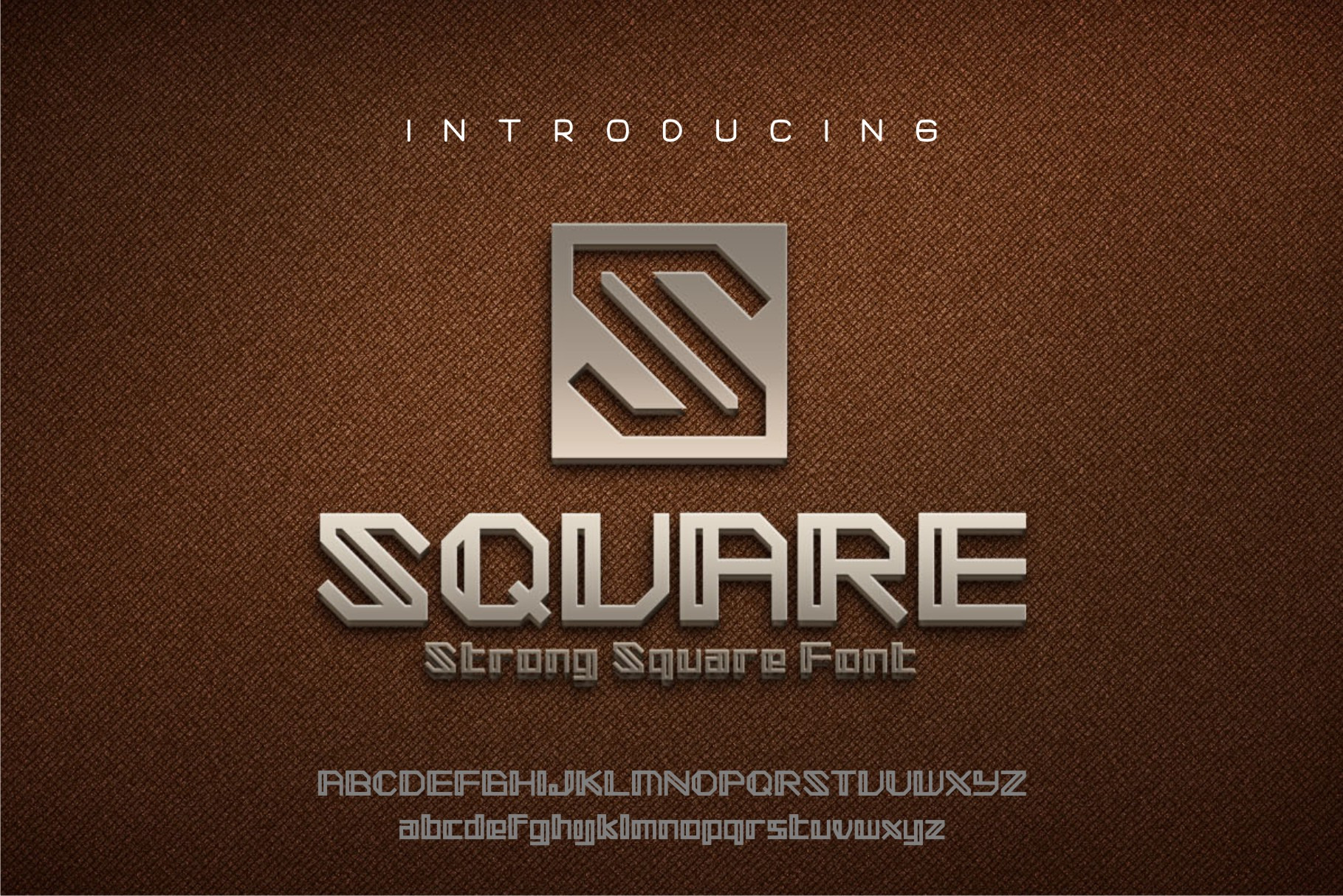
SQUARE - Strong Square font
The Square font sans serif. Simple and strong square line, it's sturdy uncompromising style is felt through the controlled letterforms and modern touches. A balance of hard lines and smooth curves.